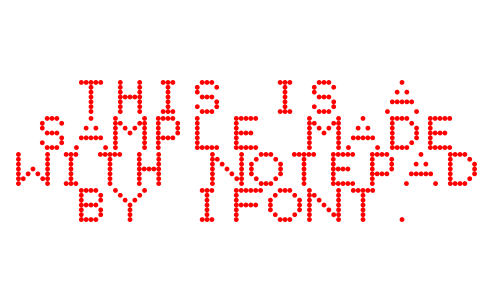
• Here’s a Remake of the original font from the VTech Explore and Write Activity Desk’s Screen.
I tried my best fitting all the New Characters within the 7×7 Matrix, Especially with Roman Number 8. But the New Characters I Made Just for this Font
1.0 (11/08/2023) - Initial Release
1.0.1 (13/08/2023) - Added Symbols for Some Animations and an Alternate Form of J.
1.0.2 (19/08/2023) - Added The Vietnamese O and U with Horn, Three Currency Symbols and Additional Punctuation.
1.1 (22/08/2023) - Added Greek, Cyrillic and Arabic.
1.2 (01/10/2023) - Fixed some Errors, and Added Medival Variants of О and Old Italic
1.2.1 (04/10/2023) - Added Extended Old Italic, Hebrew and a Variant of Z
1.2.2 (05/10/2023) - Added Klingon
1.2.3 (07/10/2023) - Added Variants of some Latin Letters, and Extended Arabic for Bosnian
1.2.4 (08/10/2023) - Added Syriac and Fixed a Cyrillic Letter.
1.3 (10/10/2023) - Added Hiragana and Katakana
1.3.1 (13/10/2023) - Added Most of Voynichese, The First Plane F Allocation
1.4 (05/11/2023) - Added Archaic “Tsan”, a G Shaped Stigma. + a Letter for Bactrian, Coptic and Kanbun.
1.4.1 (04/12/2023) - Added more Voynichese, but it’s still not complete yet.
Private Use Area Blocks
Incomposable Numbers - F000-F00F
Various Symbols for Educational Toys - F590-F8CF
Klingon - F8D0-F8FF
Voynich - FF400 - FF51F
Can you do the lower case letters?